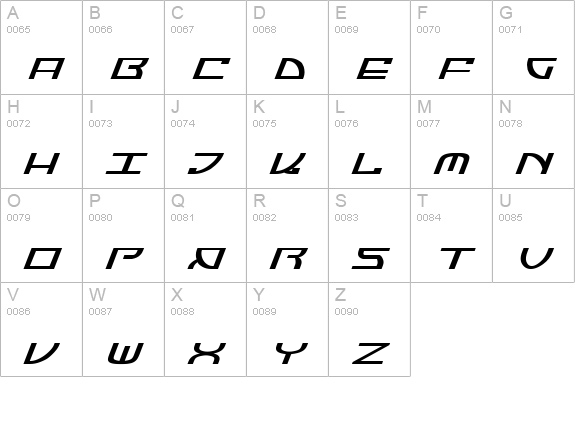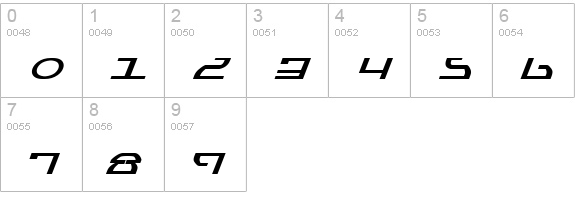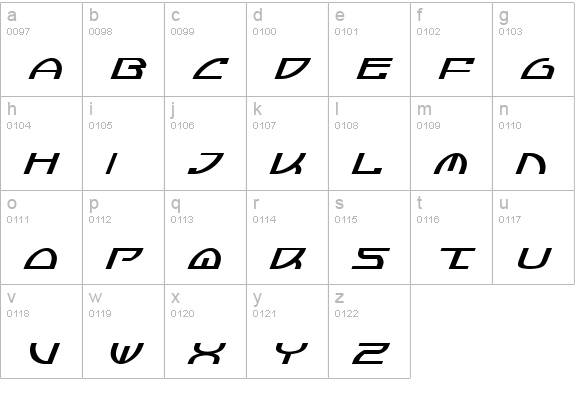
Jumptroops Italic is a distinctive, italic variant in the Jumptroops typeface family \xE2\x80\x94 well suited to design and typography projects.
Jumptroops Italic font is a sleek and modern typeface that exudes elegance and sophistication. Its stylish slanted design adds a touch of flair to any project, making it perfect for headings, titles, and other display purposes. With its clean lines and distinctive curves, Jumptroops Italic is sure to make a statement and elevate the visual appeal of any design. The best part? Jumptroops Italic font is available for free download at FontsMarket.com. This means you can easily add this versatile and eye-catching font to your collection without breaking the bank. Whether you're a professional graphic designer, a creative hobbyist, or anyone in between, Jumptroops Italic font is a must-have addition to your toolkit. Download it today and let your creativity soar!